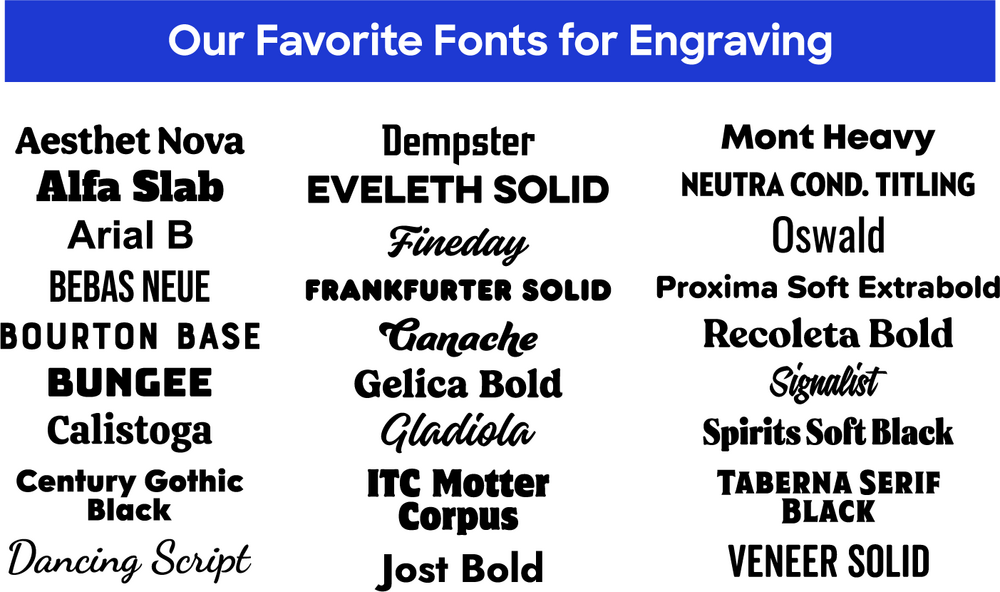
The 27 Best Fonts for Laser Engraving
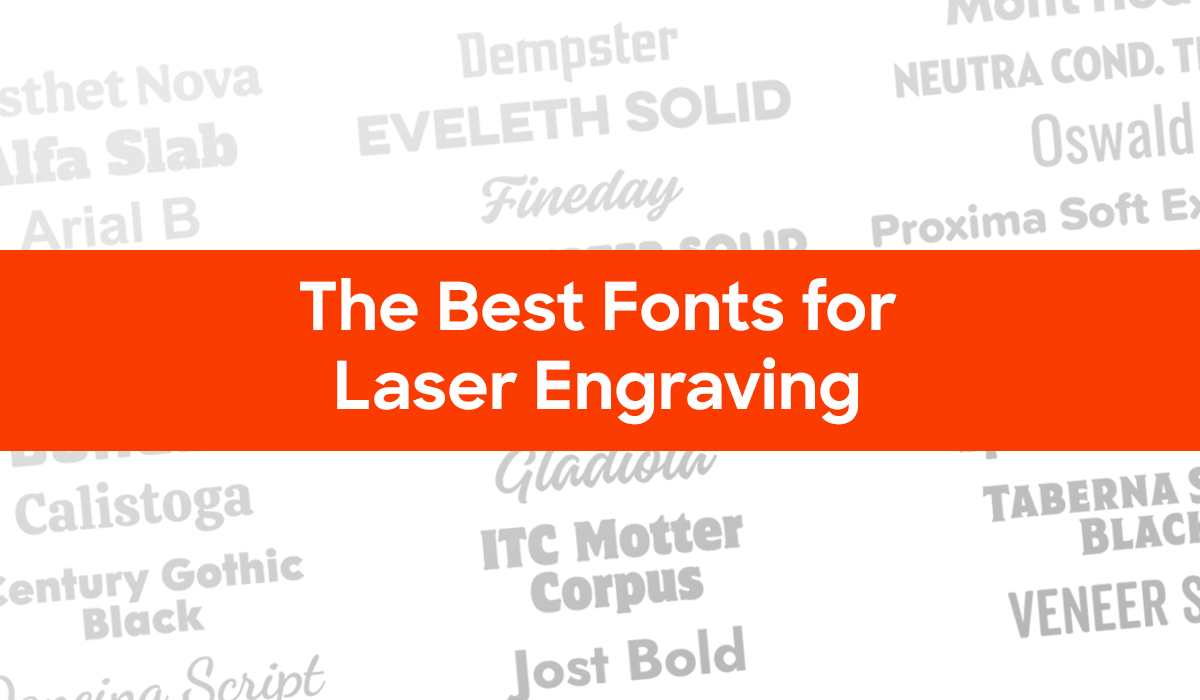
Laser engraving turns ordinary metal, wood, and glass into permanent objects with a story. The light burns the surface, the surface holds the line, and what comes out is a high-contrast piece of typography that survives commutes, miles of trail, and a decade on a desk. The decoration method rewards font choices that the laser can render cleanly: solid weights, distinct counters, and shapes that read at a small size. Below is a curated list of 27 fonts that engrave beautifully on tumblers, pens, awards, slate ornaments, and wooden coasters, organized by feel so you can match the typography to the product and the moment.
How to Pick a Font That Engraves Well
Before the font list, three rules of thumb. First, prioritize solid, continuous strokes over hairlines. The laser cuts a single uniform line; ultra-thin serifs and fine-line scripts tend to drop out or look broken at small sizes. Second, watch the counters – the enclosed white spaces inside letters like ‘e’, ‘a’, ‘o’, and ‘g’. Tight counters fill in when the engraving is small, turning a clean letterform into a mushy blob. Open, generous counters keep the type legible at one inch and below. Third, consider the substrate. Polished stainless and anodized aluminum take fine detail beautifully. Wood, leather, and slate are more forgiving on weight but less forgiving on extraneous flourishes – simple wins.
- Solid weights engrave with high contrast; hairlines fade or break.
- Open counters stay legible when the design shrinks to a tumbler curve or a pen barrel.
- Smooth lines and consistent stroke width beat decorative flourishes for engraved depth.
- Sentence case reads warmer than ALL CAPS for personalized gifts; ALL CAPS reads punchier on awards.
- One typeface plus one accent ornament is plenty – let the substrate carry the rest of the design.
- Test the engraved version with a single line of preview text before committing the whole order.
Sans-Serif Power Picks
Sans-serif fonts are the workhorse category for laser engraving. The strokes are uniform, the corners are clean, and the absence of serifs means there is nothing fragile to lose at small sizes. These nine sans choices range from geometric (Neutra Titling, Century Gothic Black) to industrial (Bebas Neue, Bungee) to humanist (Jost Bold). Pair a sans-serif with a metal water bottle, a stainless tumbler, or a corporate pen and you have a design that reads well across a room and survives a thousand dishwasher cycles.
- Arial B – the universal default for a reason; it engraves cleanly, reads from across a room, and never feels overstyled.
- Bebas Neue – tall, condensed all-caps that give event awards and trophy plates a confident, modern feel.
- Bungee – chunky, slightly square geometric sans built to hold its shape at any size on metal or wood.
- Century Gothic Black – the geometric classic; circular ‘o’ and ‘e’ read beautifully on round drinkware.
- Jost Bold – a clean humanist sans with just enough warmth to engrave on personalized gifts without looking corporate.
- Mont Heavy – ultra-bold geometric weight that prints as a solid block on slate and dark anodized metal.
- Neutra Titling – Mid-century geometric titling with low, wide proportions that look great on horizontal awards.
- Oswald – condensed sans built for tight space; perfect when the engraving area is narrow (like a pen clip or a tumbler band).
- Proxima Soft Extrabold – soft-cornered sans-serif that engraves with a friendly, contemporary feel on water bottles and travel mugs.
The sans category is the easiest place to start if this is your first laser-engraving project. Pick one face, set it 8-12 points, leave generous letter-spacing, and let the laser do the rest.
Serif and Slab Standouts
Serif and slab fonts feel established. The little extending strokes at the ends of letters give the typography a sense of permanence that suits awards, anniversary gifts, retirement plaques, and any piece meant to be kept. The trick with serifs in laser engraving is choosing weights heavy enough that the serifs do not drop out at small sizes. The nine choices below are all built for it.
- Aesthet Nova – contemporary serif with high contrast and elegant terminals; engraves beautifully on glass awards.
- Alfa Slab – heavy slab with chunky rectangular serifs that hold up on any substrate, from wood to powder-coated metal.
- Bourton Base – a vintage display serif with playful proportions; ideal for retro-leaning gifts and event swag.
- Calistoga – a friendly slab with rounded corners that reads warm on personalized gifts without losing its weight.
- Eveleth Solid – classic display slab with distinctive geometric serifs; lifts even a simple monogram into something memorable.
- Frankfurter Solid – the rounded, chunky display face that brings a 70s-poster energy; great for celebratory and milestone pieces.
- ITC Motter Corpus – a quirky display serif with personality to spare; works on creative awards and one-of-a-kind gifts.
- Recoleta Bold – contemporary serif with a soft, slightly retro feel; engraves beautifully on slate and matte metal.
- Taberna Serif Black – heavy serif with strong vertical contrast; reads sophisticated on glass awards and leather padfolios.